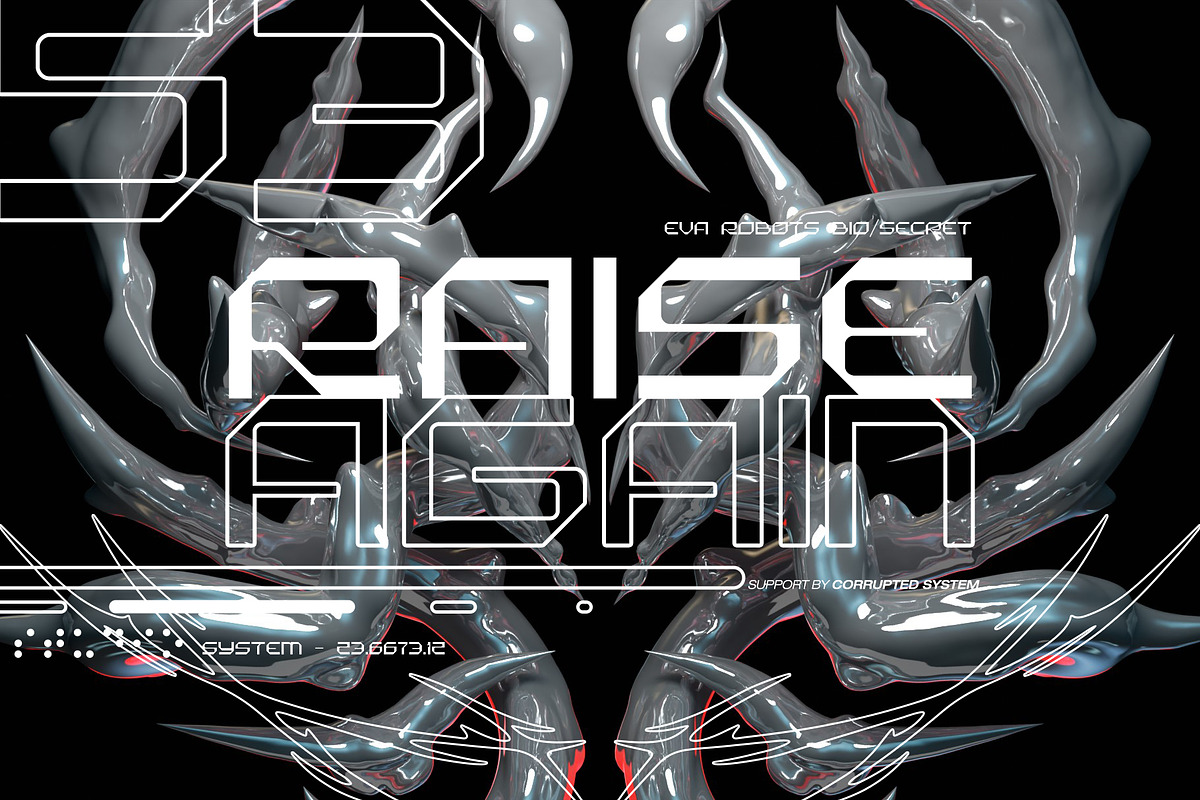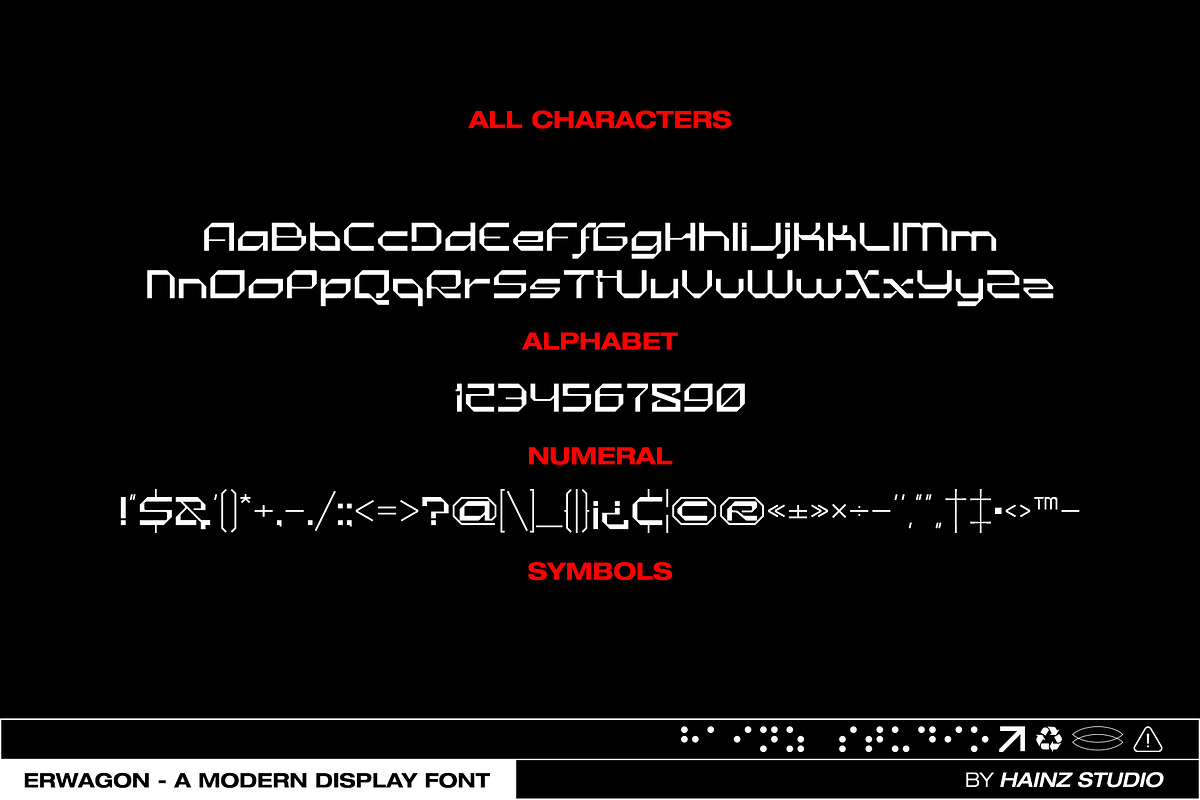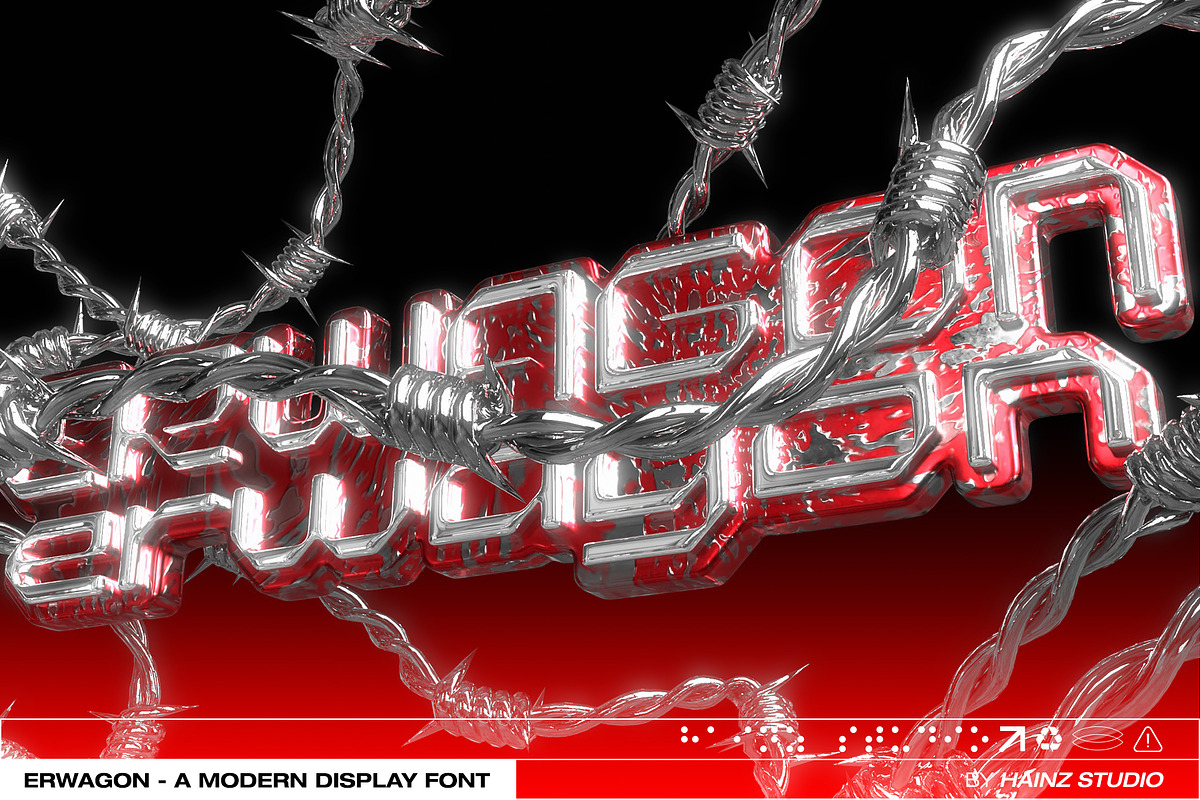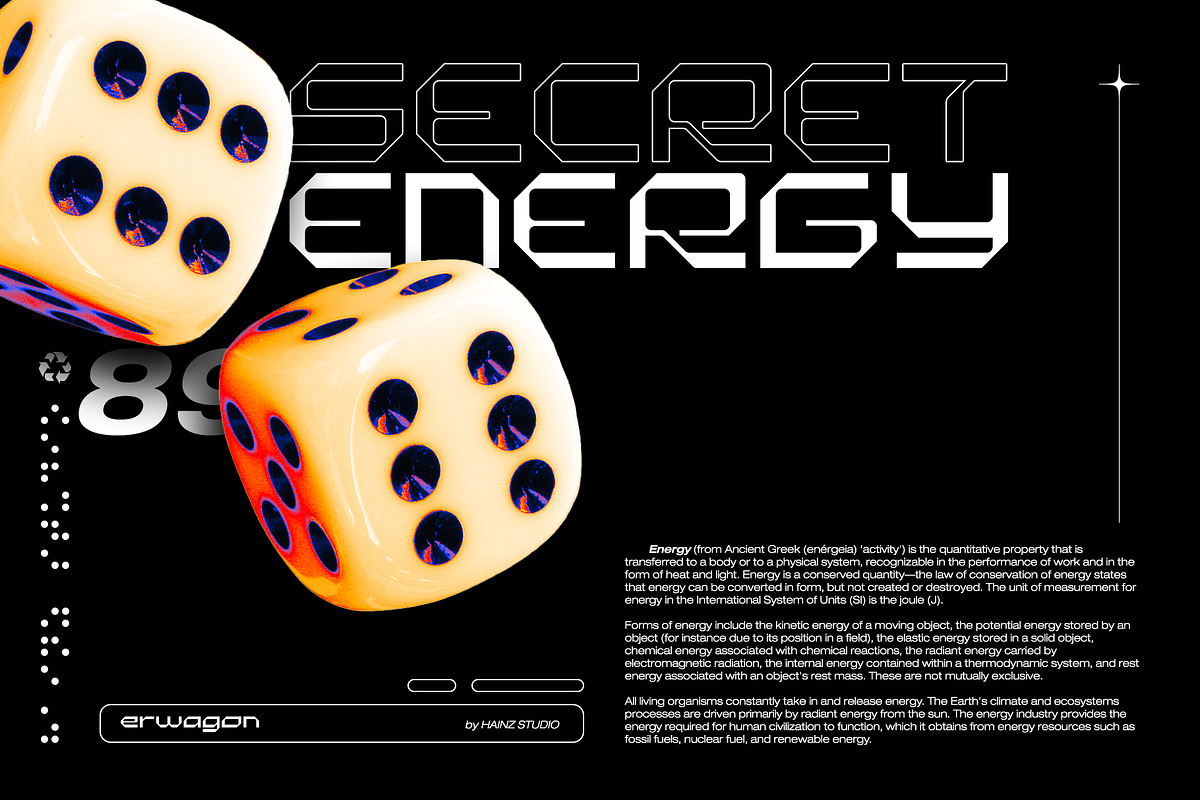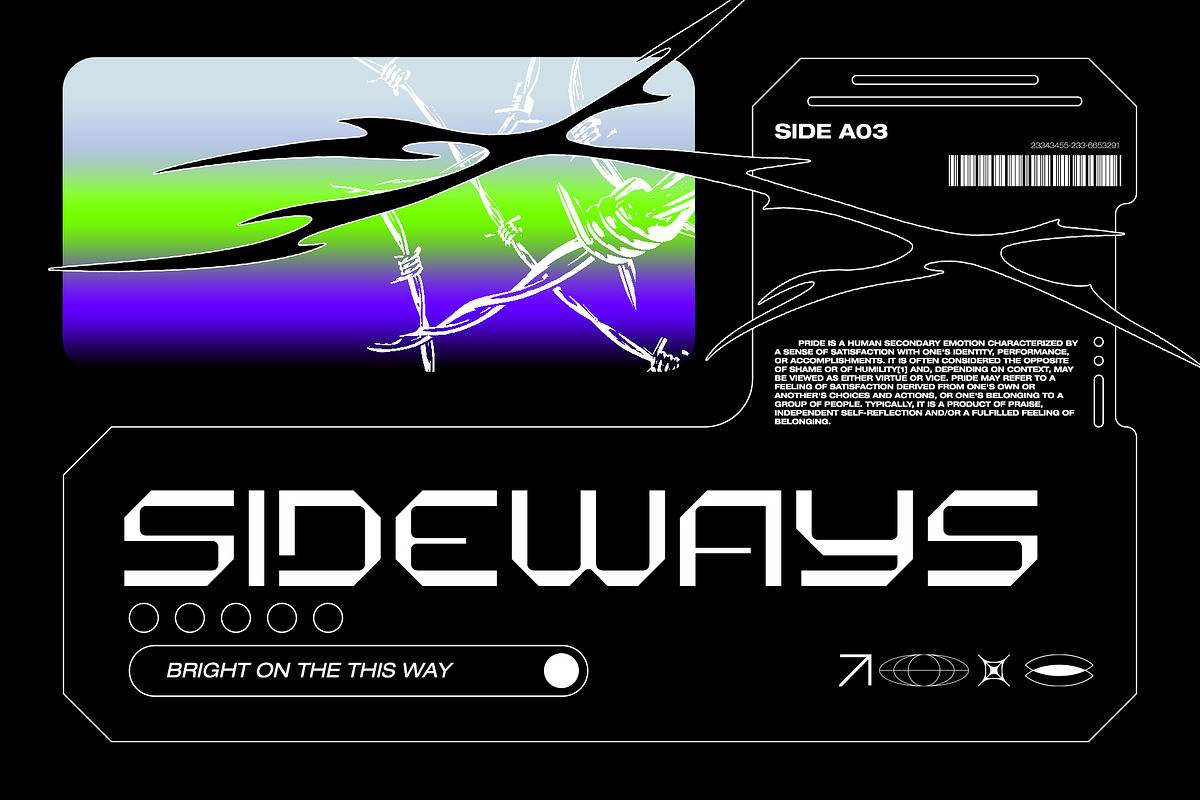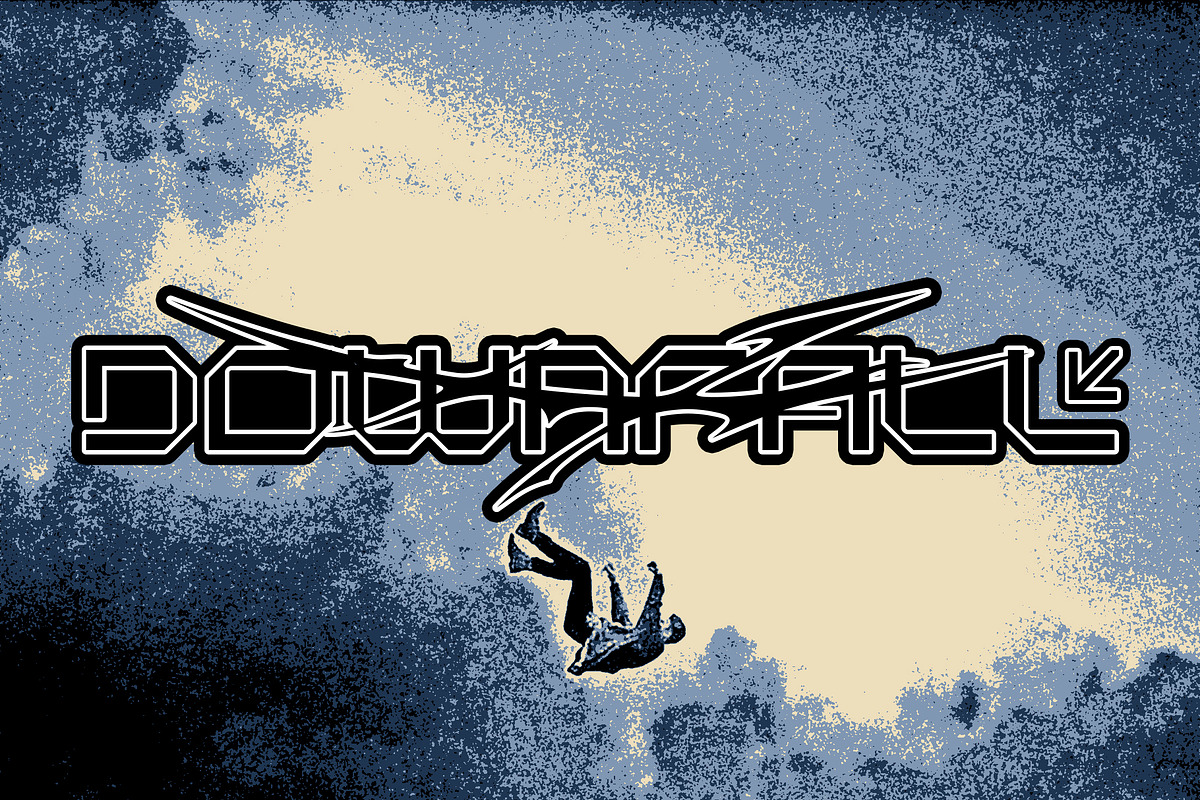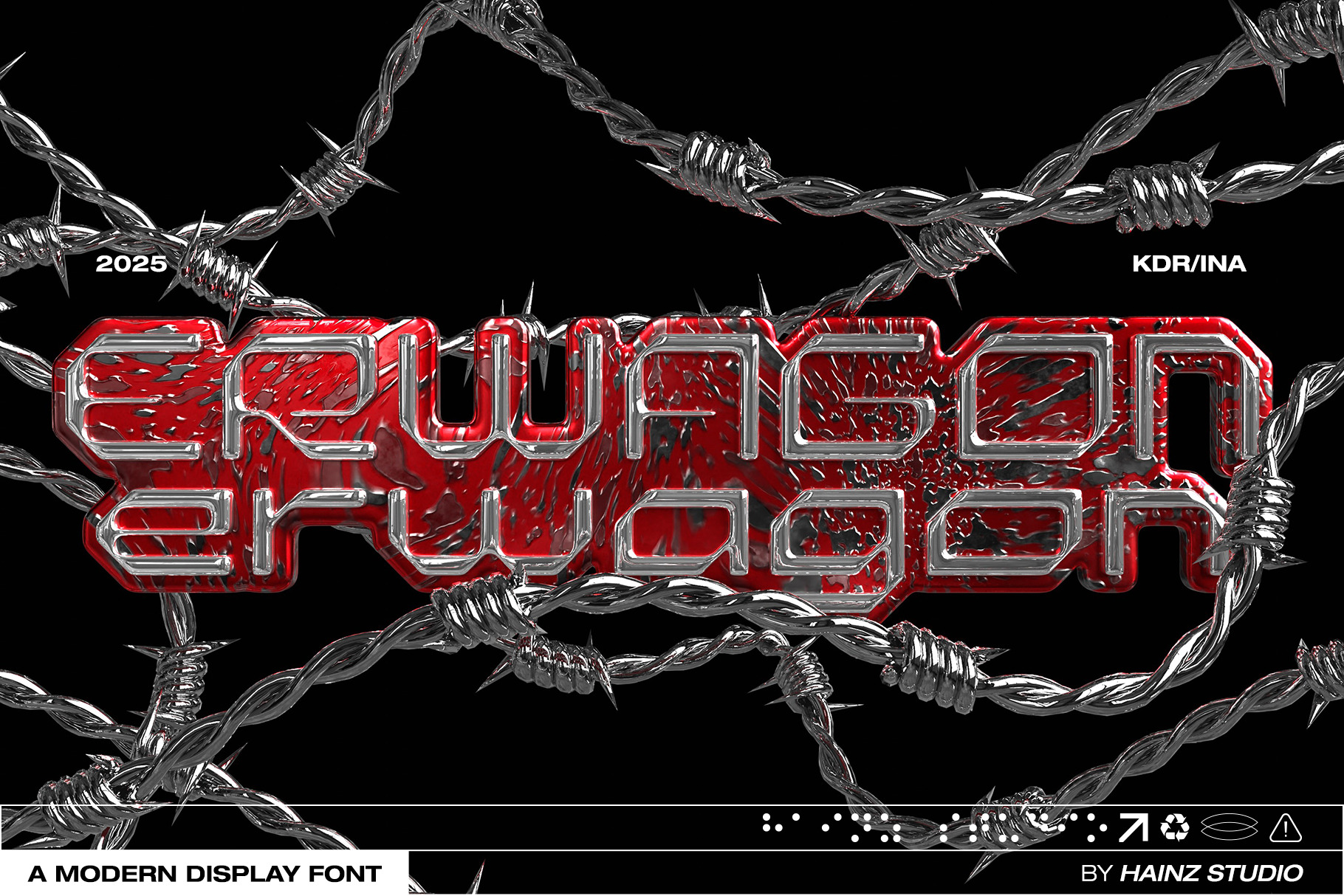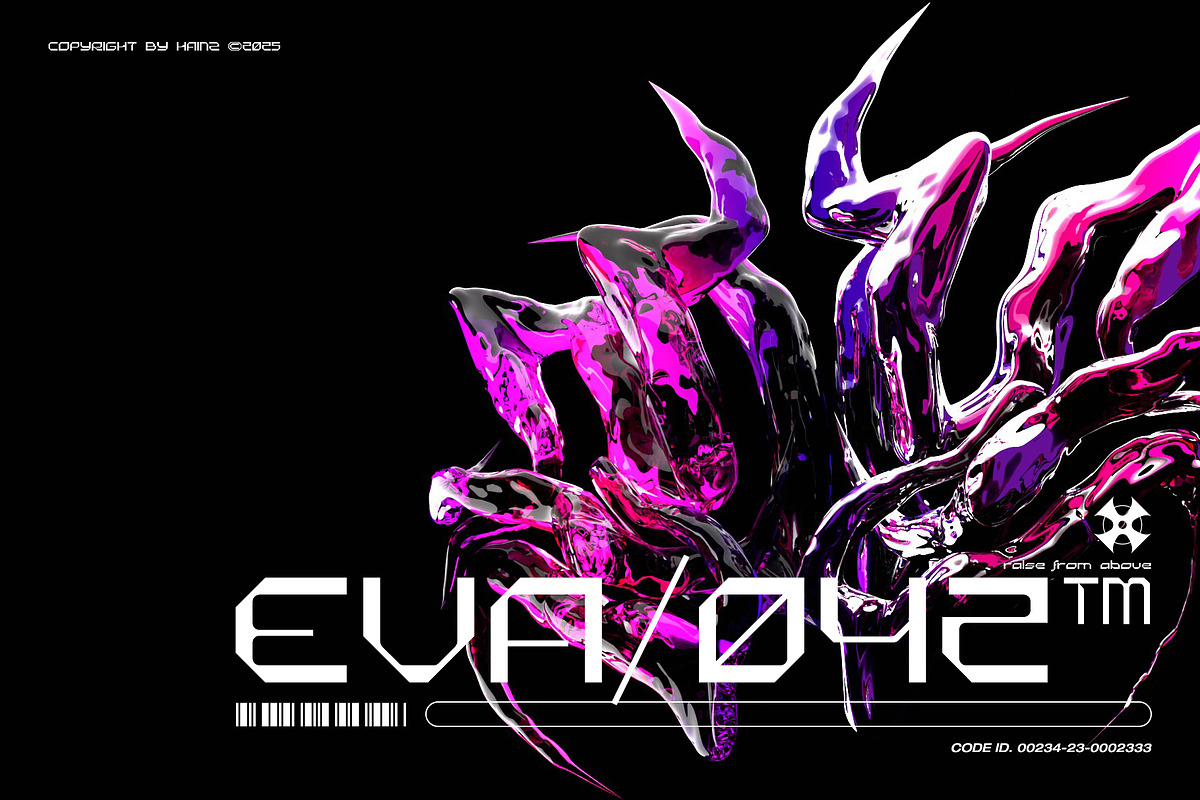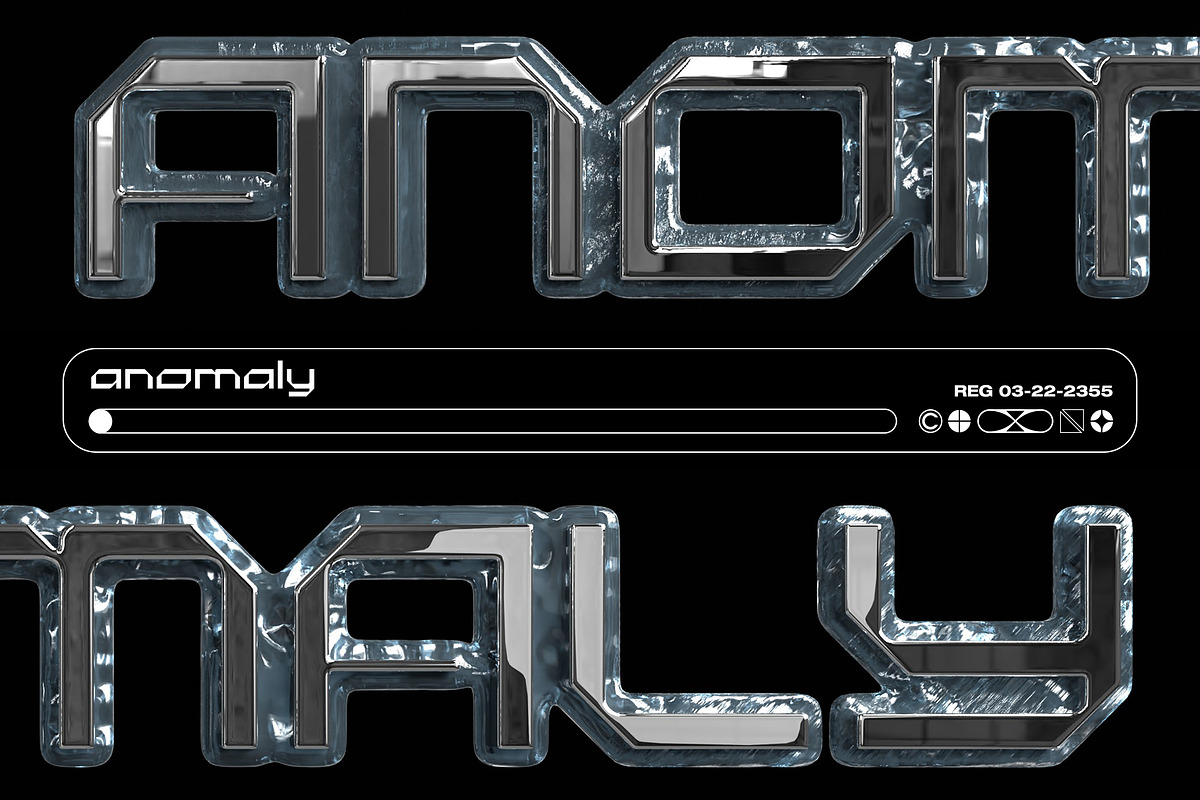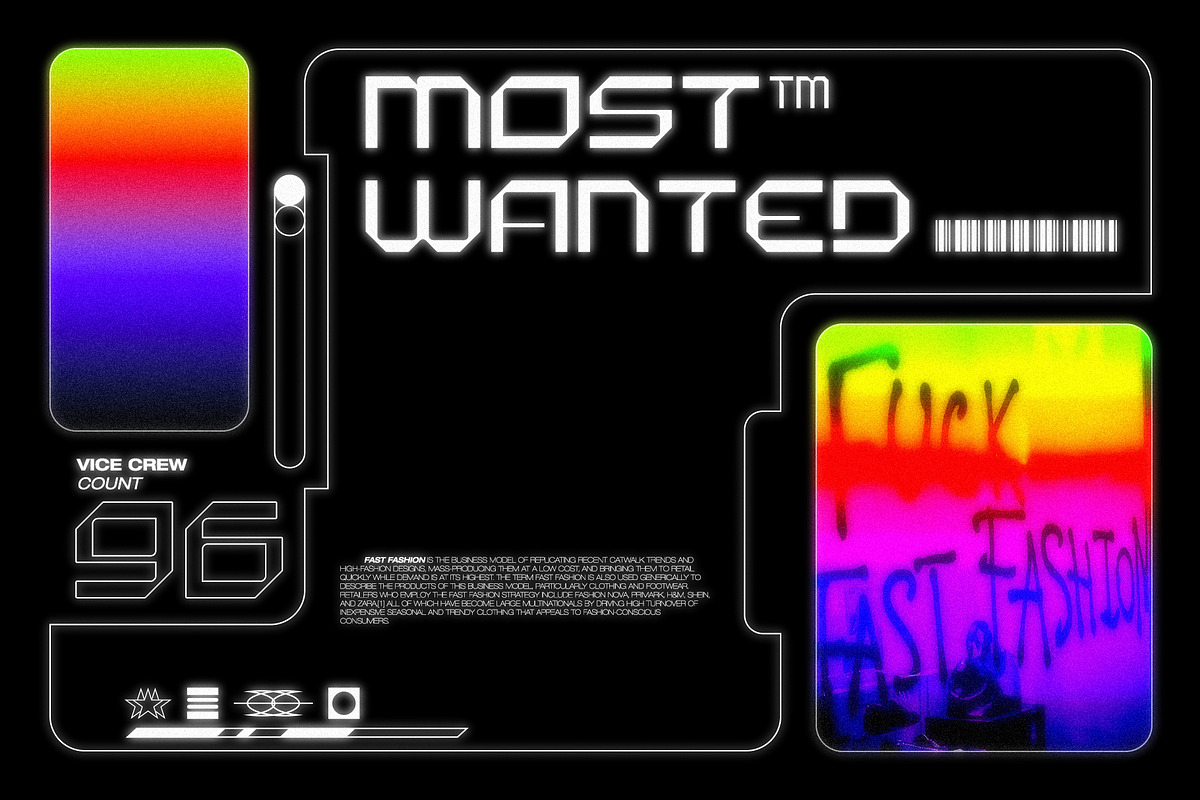
Erwagon - Display Font
ERWAGON – A Display Font for the Future
Meet Erwagon, a modern, edgy display font designed for designers who want to break the mold. With angular letterforms and a sleek industrial feel, Erwagon brings a futuristic touch to any creative project.
From cyberpunk to minimal tech, this font works beautifully for headlines, experimental layouts, branding, posters, and album artwork.
- Stylish uppercase & lowercase letters
- Numbers, symbols & punctuation
- Display-focused design
Bold. Modern. Unique. That’s Erwagon.